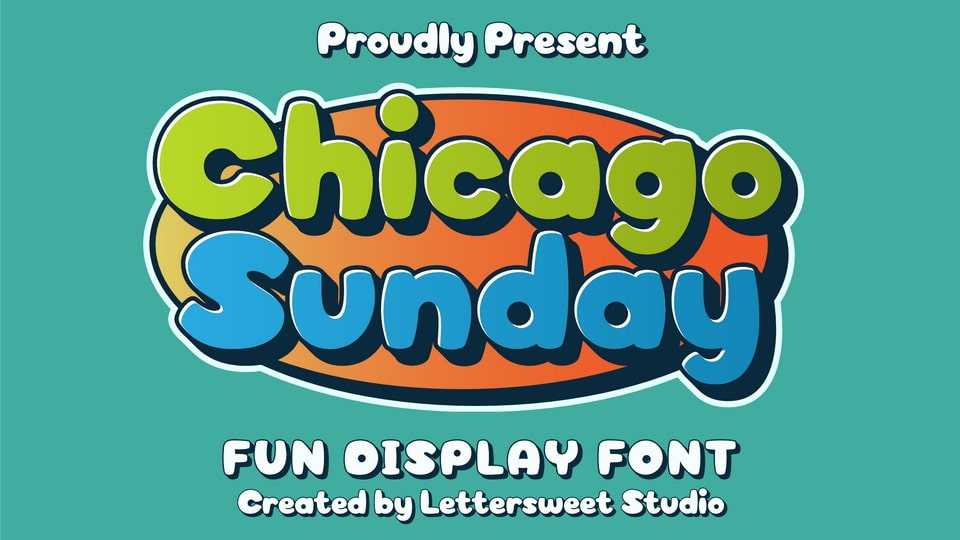
Download Chicago Sunday font, a cheerful and bold display typeface designed to bring joy to your creative projects with its chunky curves, vibrant style, and cartoon-inspired look.